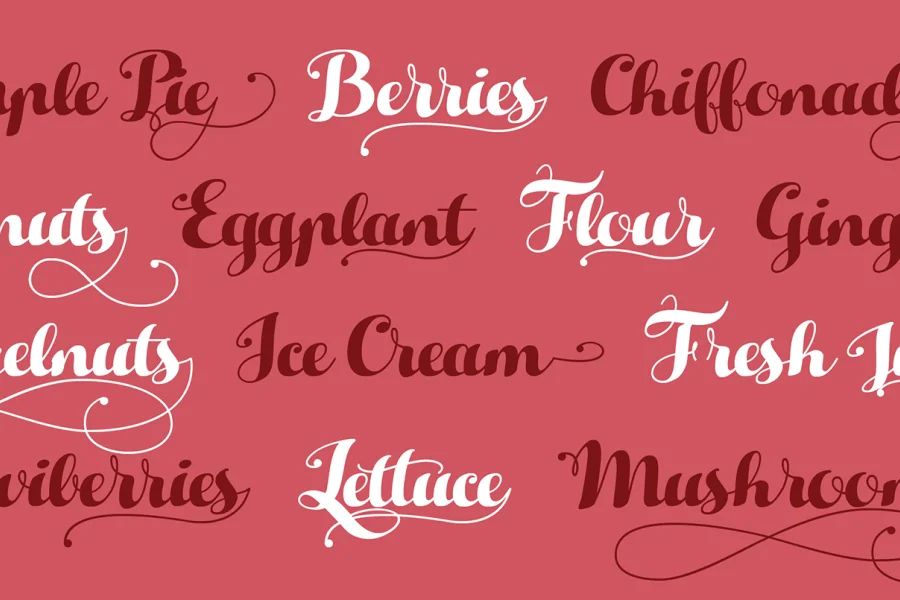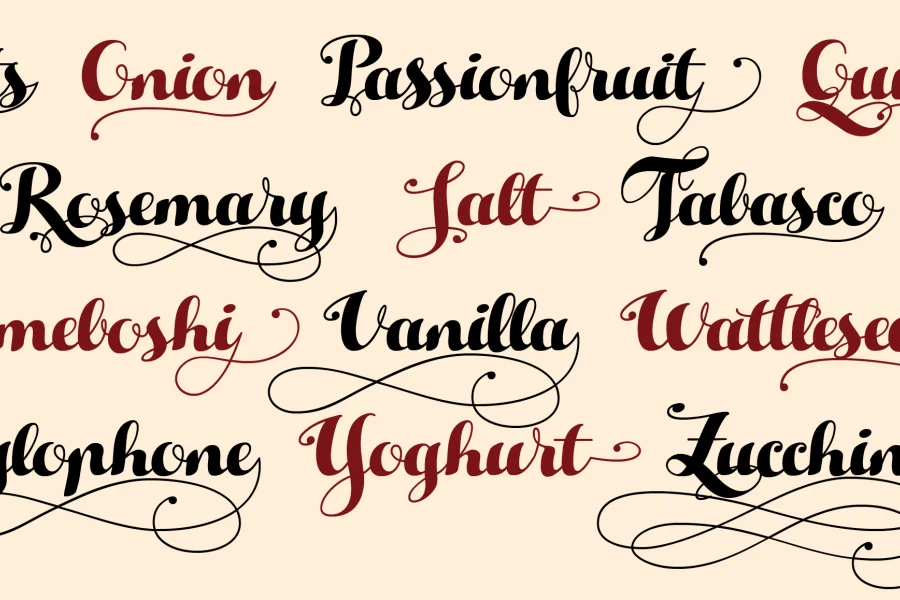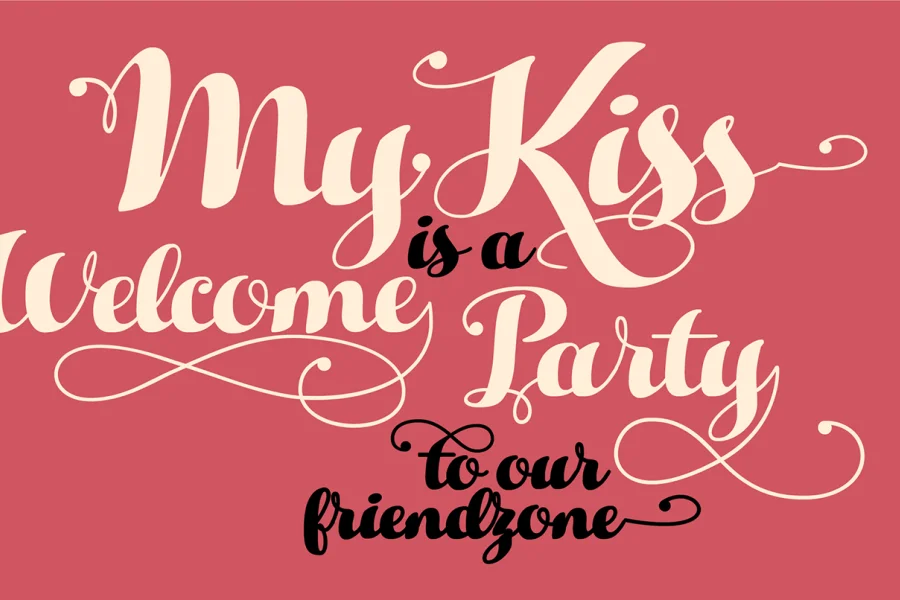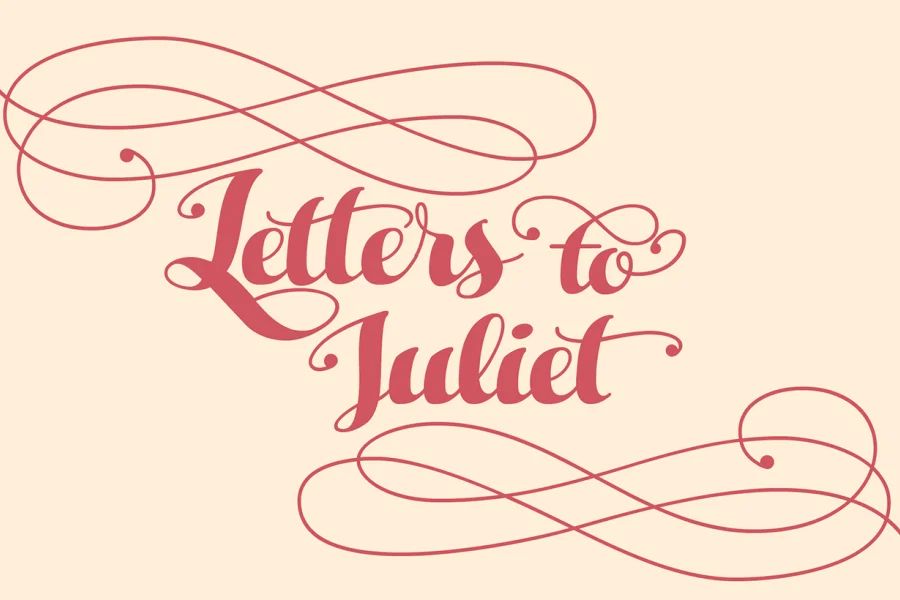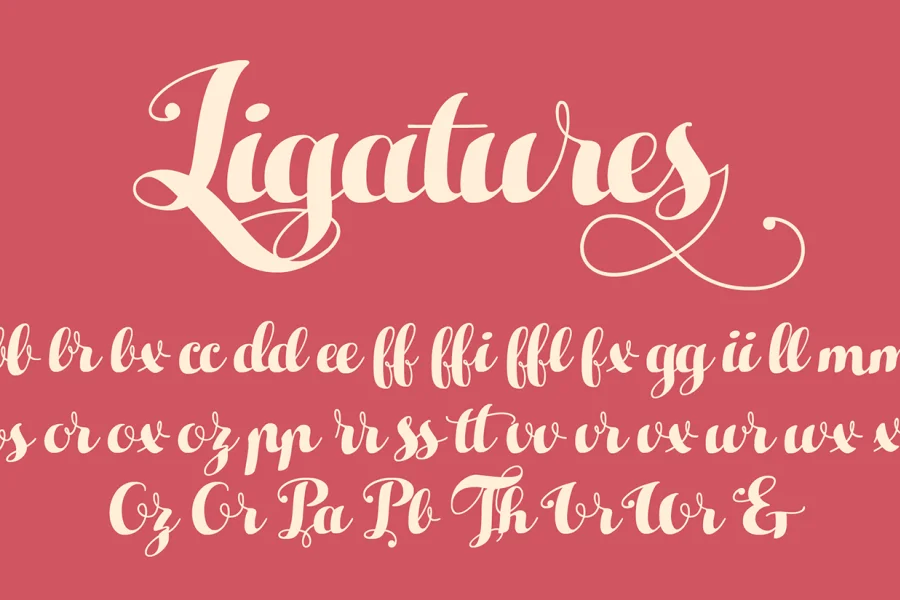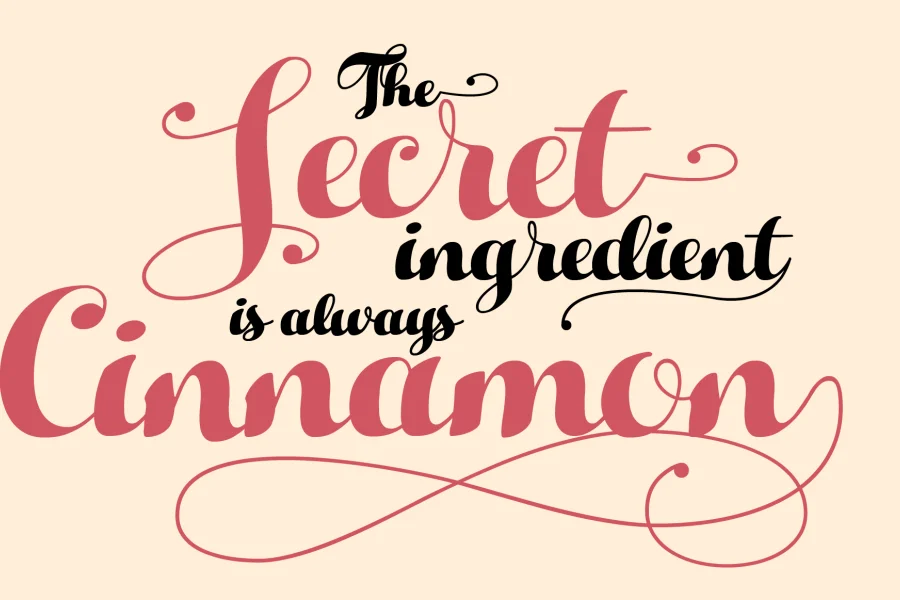
HELLO SCRIPT is a script typeface designed by Cosimo Lorenzo Pancini. It is a high contrast calligraphic script, featuring monoline swashes and terminals and strong, round body shapes designed with a parallel nib. Hello Script makes full use of Open Type substitutions to avoid letter clashes in uppercase and provide ligature, alternate and end characters. It covers over 40 languages that use the Latin alphabet, with full range of accents and diacritics.
The commercial version features ten different swashes and three alternate weights to compose beautiful calligraphy in different sizes with a consistent line width.